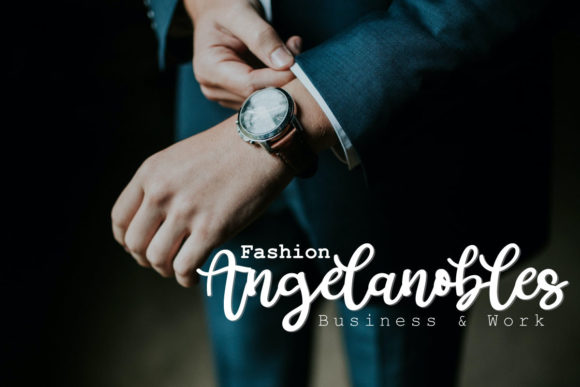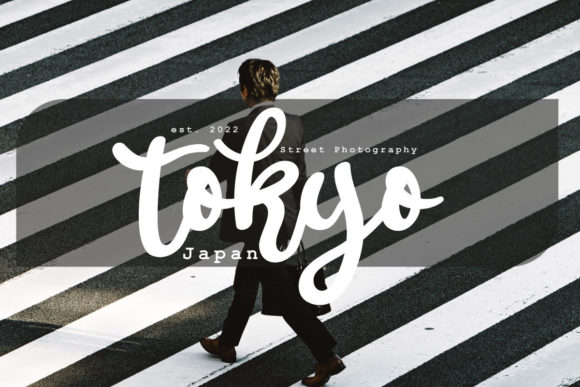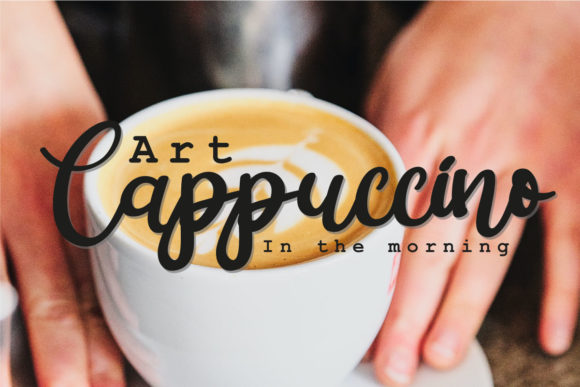
I still remember the frustration of working on a project, hours spent crafting the perfect design, only to realize that the font I chose was completely off. The client wanted something elegant and sophisticated, but my font was more akin to a Comic Sans disaster. That’s when I stumbled upon Felix Font, a beautiful, fountain handwritten font that instantly elevated my design game. In this article, I’ll share my experience with Felix Font, its features, and how to make the most of it in various design platforms.
A First Impression: What I Love About Felix Font
Felix Font is a stunning handwritten font that exudes simplicity and elegance. Here are some features that I absolutely love:
- ✨ Unique yet Simple: Felix Font has a distinct personality that sets it apart from other fonts, yet it’s simple enough to work well in various design contexts.
- ✅ Highly Legible: The font is incredibly legible, even at smaller sizes, making it perfect for body text or headings.
- 💫 Versatile: Felix Font works well in a variety of design projects, from branding and advertising to packaging and digital media.
Honest Review: The Not-Perfect-but-Almost Section
No font is perfect, and Felix Font is no exception. Here are some quirks and limitations to keep in mind:
- 🤔 Limited Multilingual Support: Felix Font may not support as many languages as some other fonts, so be sure to check the character set before using it for a multilingual project.
- ⚠️ Occasional Kerning Issues: As with any font, there may be some kerning issues, especially when using it in combination with other fonts. Be sure to adjust the kerning to get the best results.
The Story Behind Felix Font
Felix Font was designed by a team of typographers who wanted to create a font that was both elegant and simple. Inspired by classic fountain pens, Felix Font is the result of hours of meticulous craftsmanship and attention to detail. The designers aimed to create a font that would be versatile, legible, and beautiful – and I think they succeeded!
| Font Name | Felix Font |
| Author | Arief Indra Pratama |
| What is Felix Font? | Felix Font is a beautiful, fountain handwritten font designed for elegance and simplicity. |
| Is Felix Font suitable for body text? | Yes, Felix Font is highly legible and works well for body text, especially in larger sizes. |
| Is Felix Font available in multiple languages? | Felix Font may have limited multilingual support, so be sure to check the character set before using it for a multilingual project. |